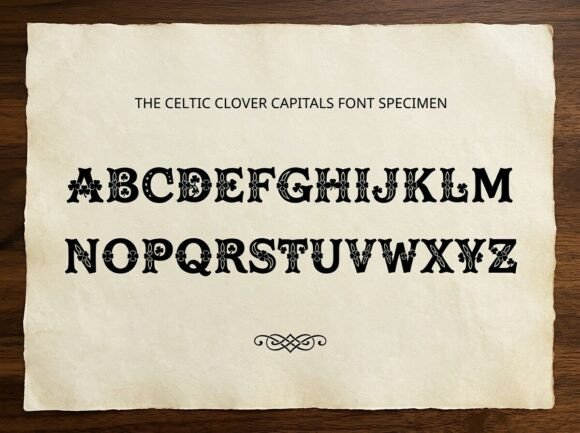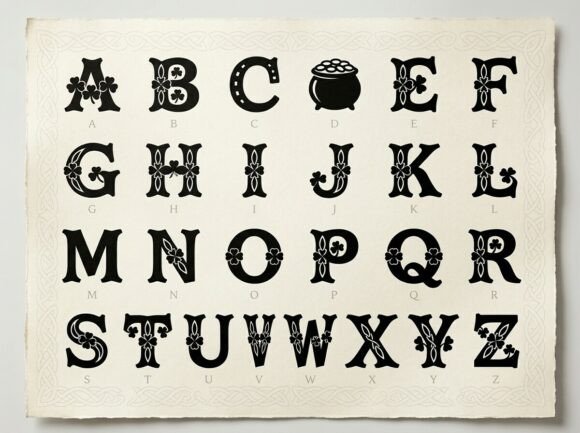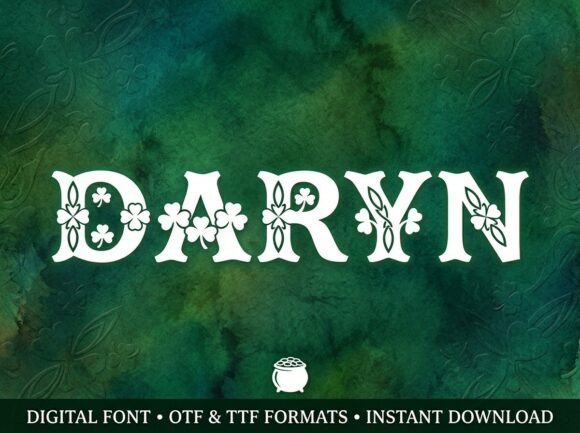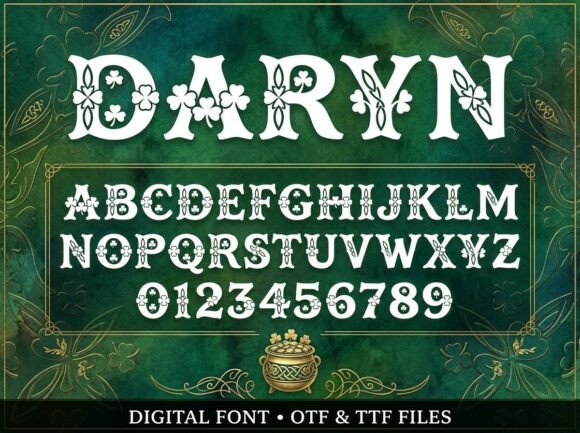
Introducing Daryn Font: A Stunning Decorative Display Font
Are you tired of using the same old fonts for your designs? Do you want to make a statement and stand out from the crowd? Look no further than Daryn Font, a unique and artistic decorative display font that’s sure to turn heads. In this article, we’ll take a closer look at what makes Daryn Font special and how it can elevate your designs.
Daryn Font is a stunning decorative display font designed to be the center of attention. With its unique artistic elements and strong visual personality, this font is perfect for creators who want to break away from the ordinary. Whether you’re working on a bold headline, artistic logo, or creative packaging, Daryn Font is versatile enough to make a lasting impression.
What to Expect from Daryn Font
Before making a purchase, it’s essential to note that Daryn Font is an ALL-CAPS (Uppercase Only) display typeface. This means that it does not include lowercase letters. Specifically designed for high-impact headlines, logos, and decorative initials, every letter in Daryn Font is a work of art. This unique design approach ensures that each letter makes a statement, making it perfect for applications where you want to draw attention.
Daryn Font is an excellent choice for designers and crafters looking to add a touch of elegance and sophistication to their work. With its professional and polished finish, this font is ideal for:
- Bold Headlines: Make a statement with Daryn Font’s unique and artistic lettering.
- Artistic Logos: Create a lasting impression with a custom logo that showcases your brand’s personality.
- Creative Packaging: Stand out on store shelves with eye-catching packaging that features Daryn Font.
Tips for Using Daryn Font
To get the most out of Daryn Font, here are a few tips to keep in mind:
- Use it sparingly: Due to its bold and artistic nature, Daryn Font is best used sparingly to make a maximum impact.
- Experiment with colors and textures: Don’t be afraid to try out different colors and textures to add depth and interest to your designs.
- Pair it with complementary fonts: For body text or supporting information, pair Daryn Font with a complementary font to create visual harmony.